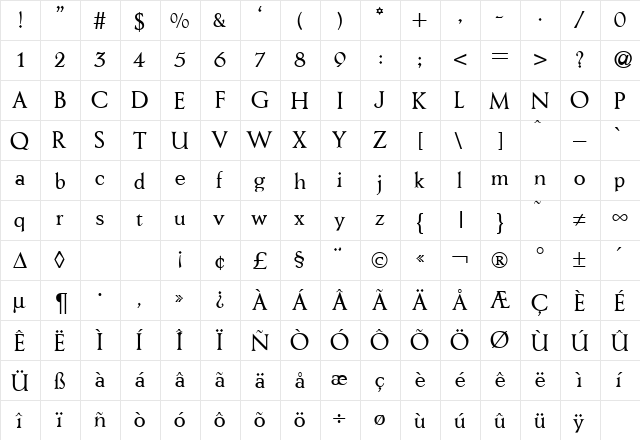
Aesop Regular
Design Context for Aesop Typeface
Aesop offers clean, dependable letterforms without strong stylistic allegiance, making it a practical choice for designers who need flexibility.